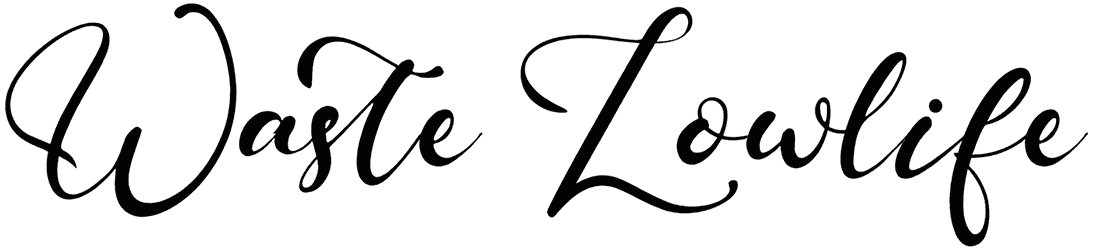
Waste Lowlife Font
If you are in the mood for adding an artistic touch to your editorial projects, a magical script font the same to Waste Lowlife can be really helpful. This cursive love font comes with a unique and soft style, thus it can lead to a vibe of majesty, drama, vitality, and precision.
Due to its wonderful soft texture, it can be perfectly matched with a wide range of artwork, ranging from wedding invitations and product packaging to greeting cards.